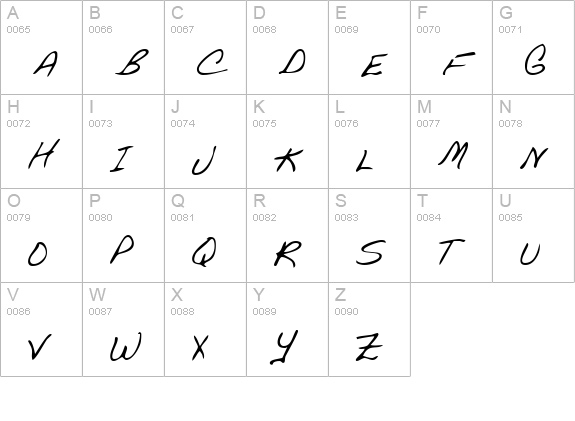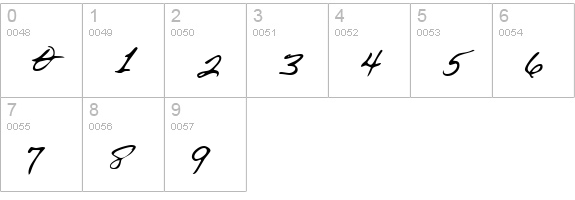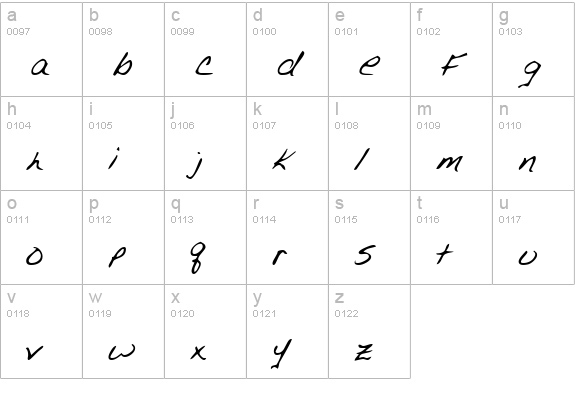
DorothysHand Regular Font Details
DorothysHand Regular is the standard, neutral variant in the DorothysHand typeface family \xE2\x80\x94 well suited to general body text, paragraphs, and standard typographic work.
DorothysHand Regular font is a charming and elegant typeface that exudes a sense of warmth and friendliness. Its flowing curves and delicate strokes give it a handwritten feel that is perfect for adding a personal touch to your projects. Whether you're designing invitations, greeting cards, or branding materials, DorothysHand Regular is sure to make a lasting impression. The best part? This beautiful font is available for free download at FontsMarket.com. Now you can add a touch of sophistication to your designs without breaking the bank. Don't miss out on the opportunity to elevate your creations with the timeless beauty of DorothysHand Regular font. Download it today and let your creativity shine!